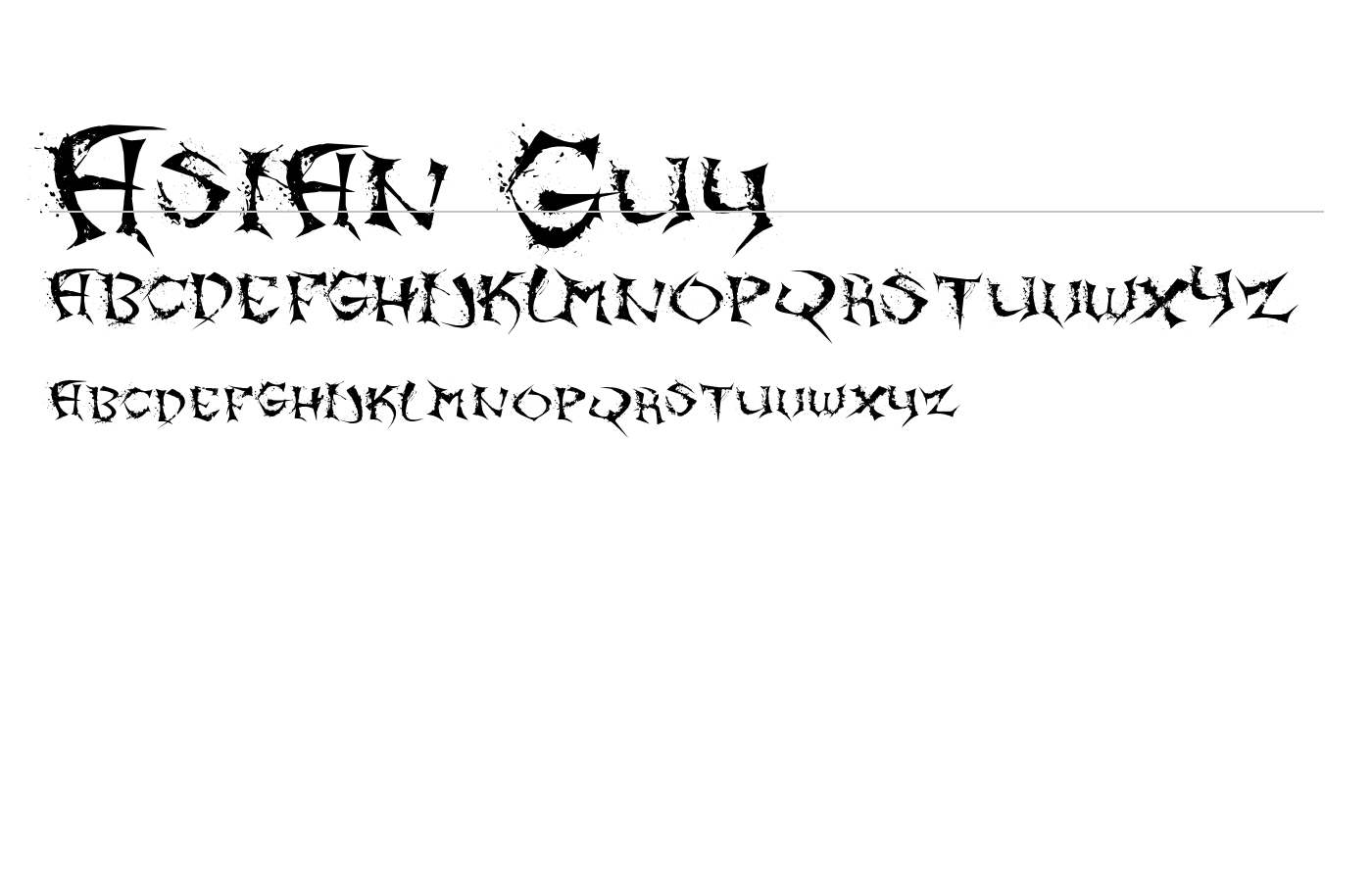
Asian Guy Font is an expressive, decorative typeface with sharp, dynamic strokes and an edgy, distressed look. Its narrow letterforms and edgy flares give it a chaotic, rebellious vibe, making it perfect for eye-catching headlines, posters, or branding that aims to convey intensity or an alternative aesthetic. This font works best in creative, bold designs where a strong, unconventional personality is needed.
Asian Guy Font
About Asian Guy Font